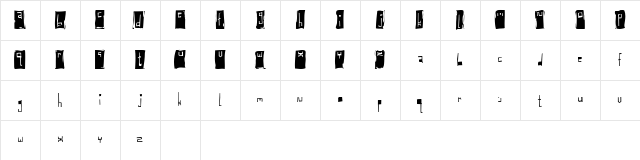
Baglady Regular
Design Context for Baglady
Baglady is a composed and adaptable typeface that performs quietly and consistently across a wide range of design contexts.
Pro Tip: Use Baglady in both headline and body roles to test its range before committing to a single application.